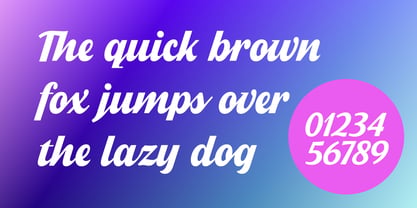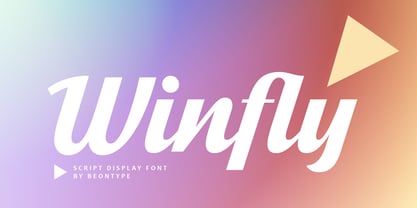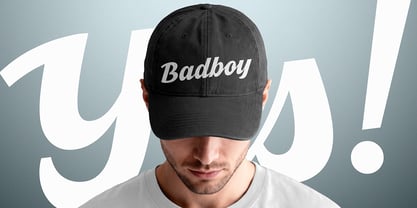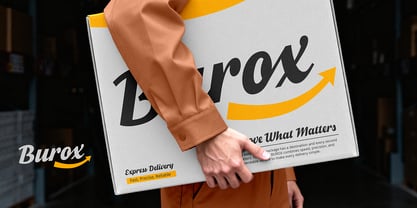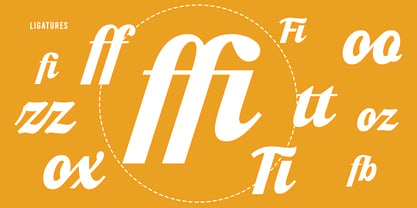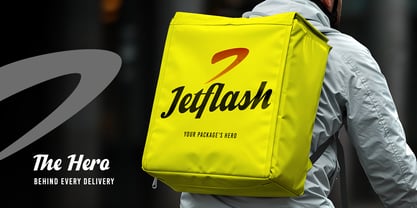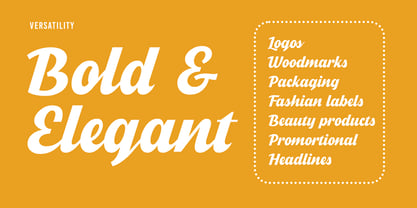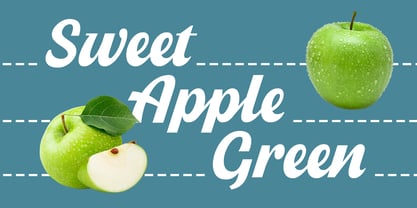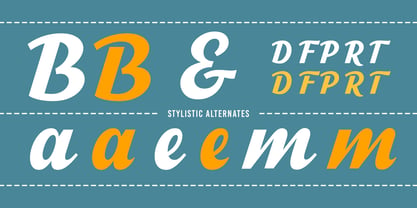
Winfly
by BeonType
The Winfly Font Family was designed by Biyono Ibrahim and published by BeonType. Winfly contains 1 styles. More about this family
Winfly is a bold and energetic script display font that showcases a dynamic and expressive character. Its strong italic forms and flowing details contribute to a confident, sporty aesthetic while ensuring a clean and versatile look. Perfectly suited for impactful branding, logos, packaging, fashion labels, promotional graphics, and headlines, Winfly also includes stylistic alternates and ligatures, providing added flexibility and visual variation for diverse design applications.
Designers: Biyono Ibrahim
Foundry: BeonType